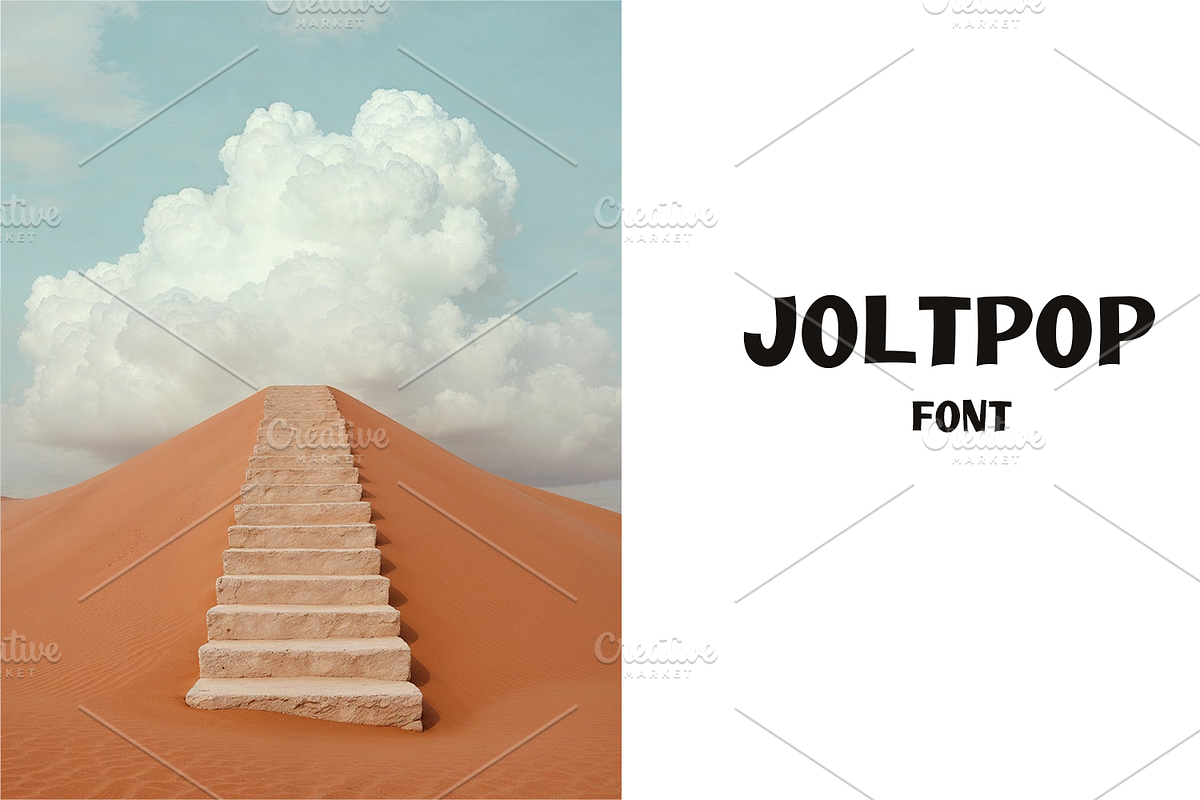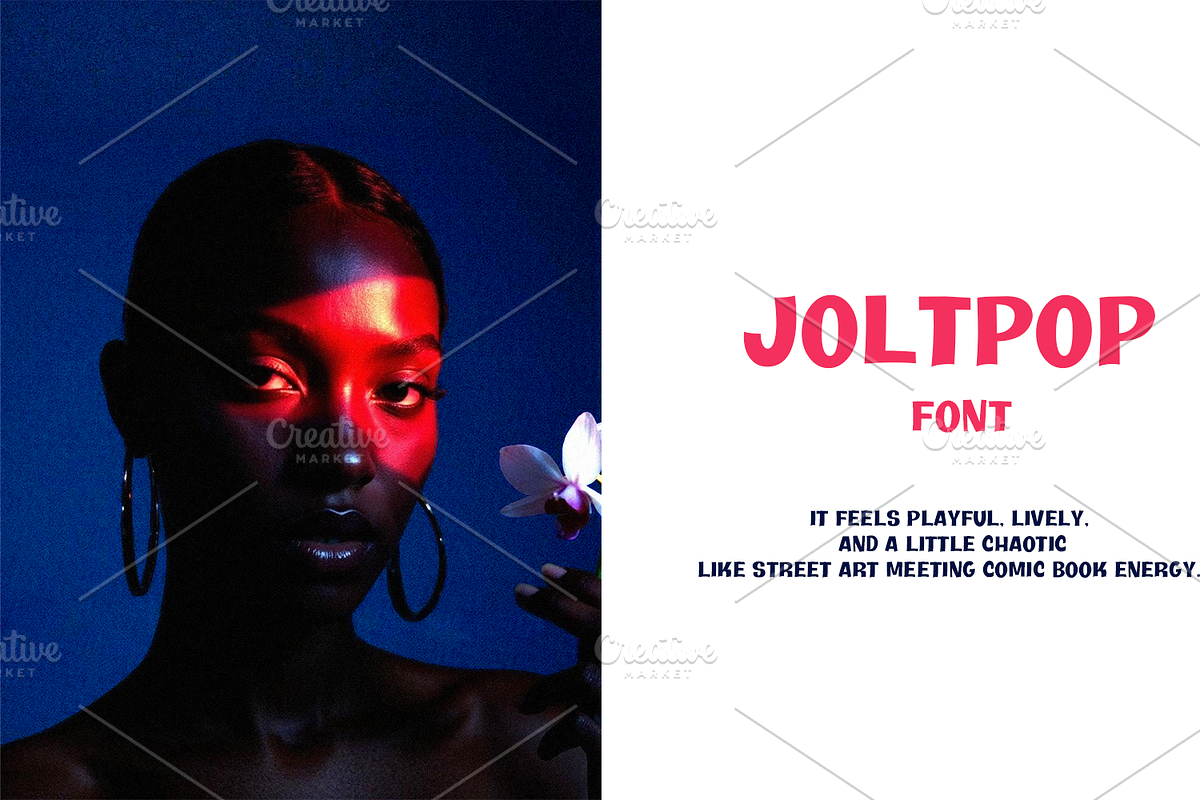
Fuel your designs with Joltpop—a font that hits with flavor and attitude.
Bold strokes and playful edges give your words unstoppable energy.
Perfect for coffee brands, youth campaigns, or anything buzzing with life.
It doesn’t just speak—it shouts with style.
Joltpop: Type with a punch.